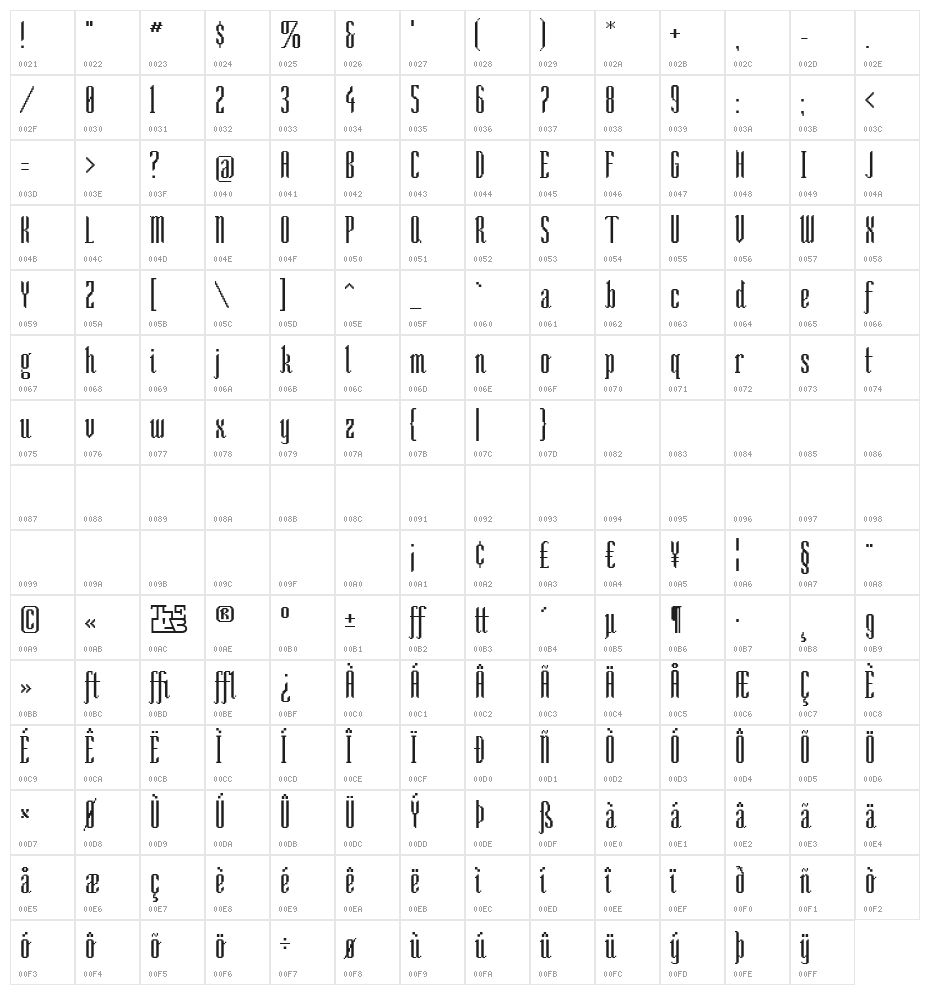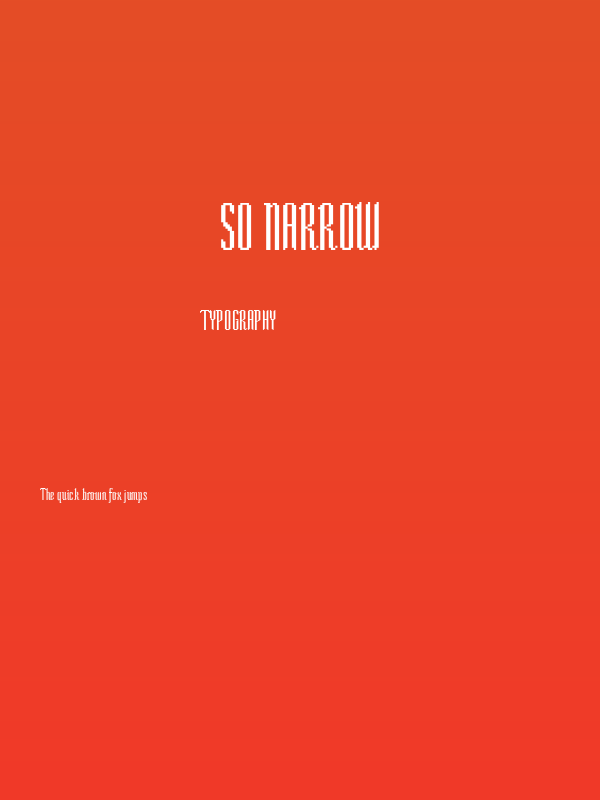
So Narrow Font
So Narrow Description
This font exhibits a tall and narrow structure, characterized by its elongated and condensed letterforms. The vertical emphasis is prominent, with strokes that are consistently thin, giving it a sleek and modern appearance. The uppercase letters are particularly striking, with a uniform height that enhances the font's streamlined look. The lowercase letters maintain the narrow theme, ensuring readability while preserving the unique style. Numbers and special characters are designed to match the overall aesthetic, providing a cohesive look across all characters. This font's distinctiveness lies in its ability to convey elegance and sophistication through its minimalistic design.
Proposed ProjectsIdeal for fashion magazines, luxury branding, and minimalist design projects.